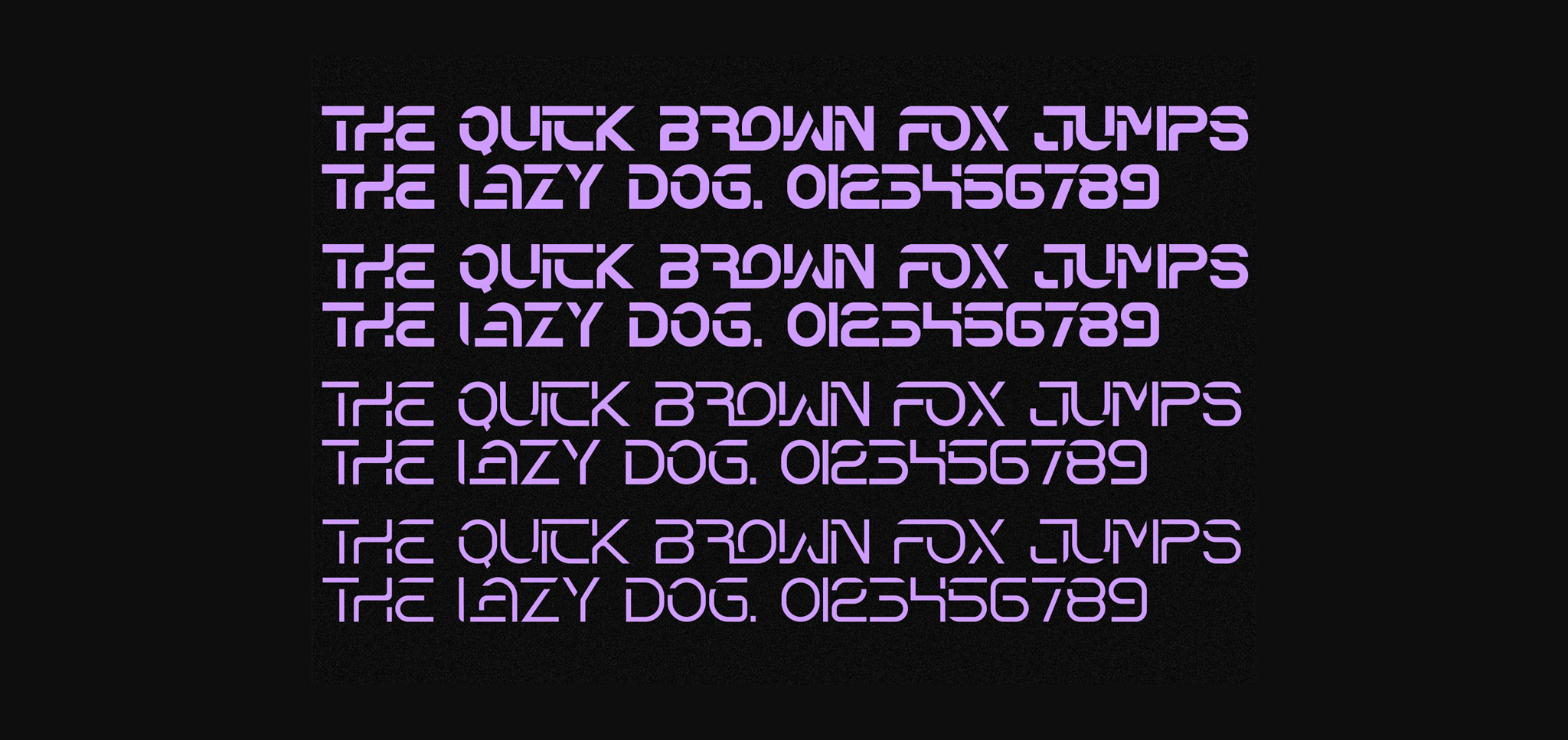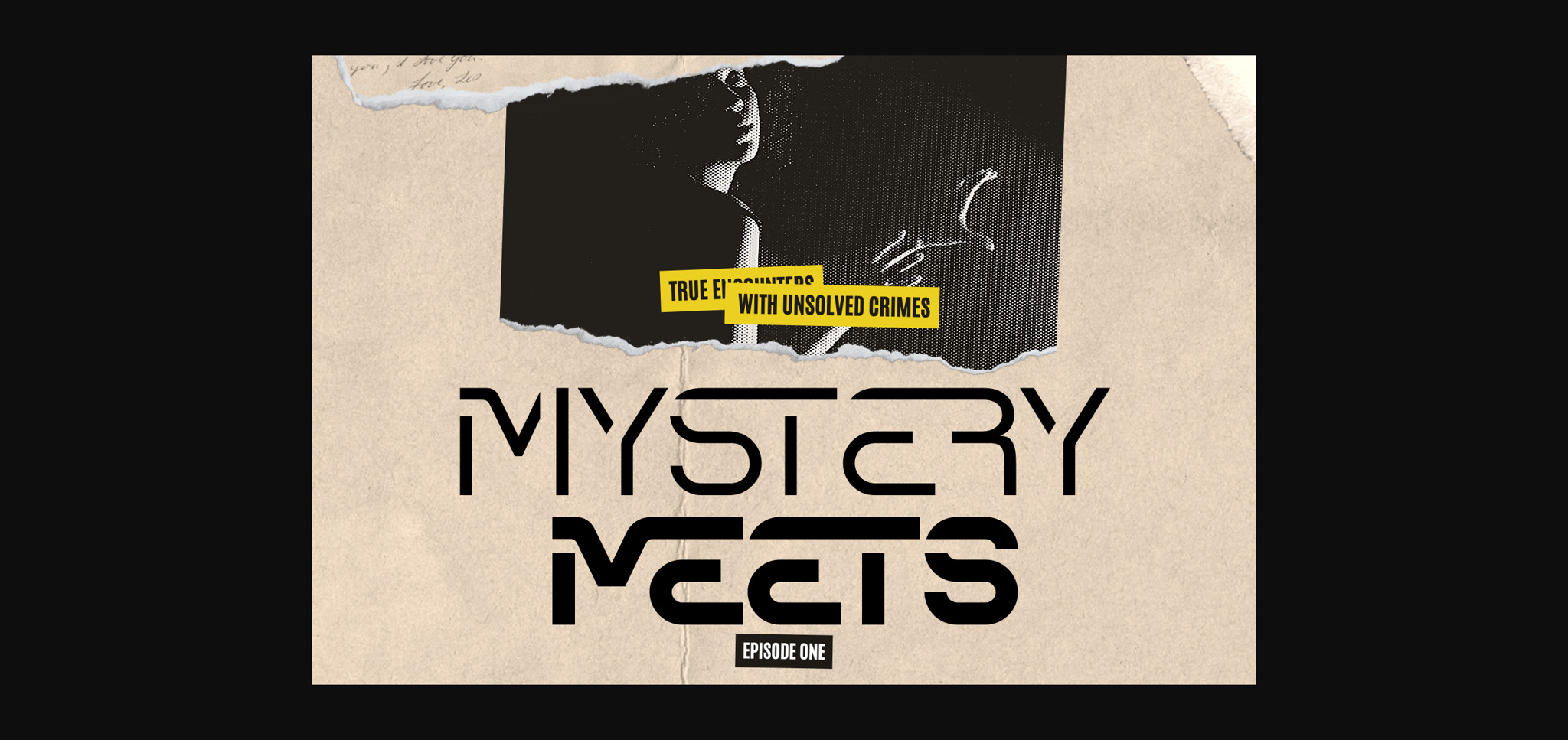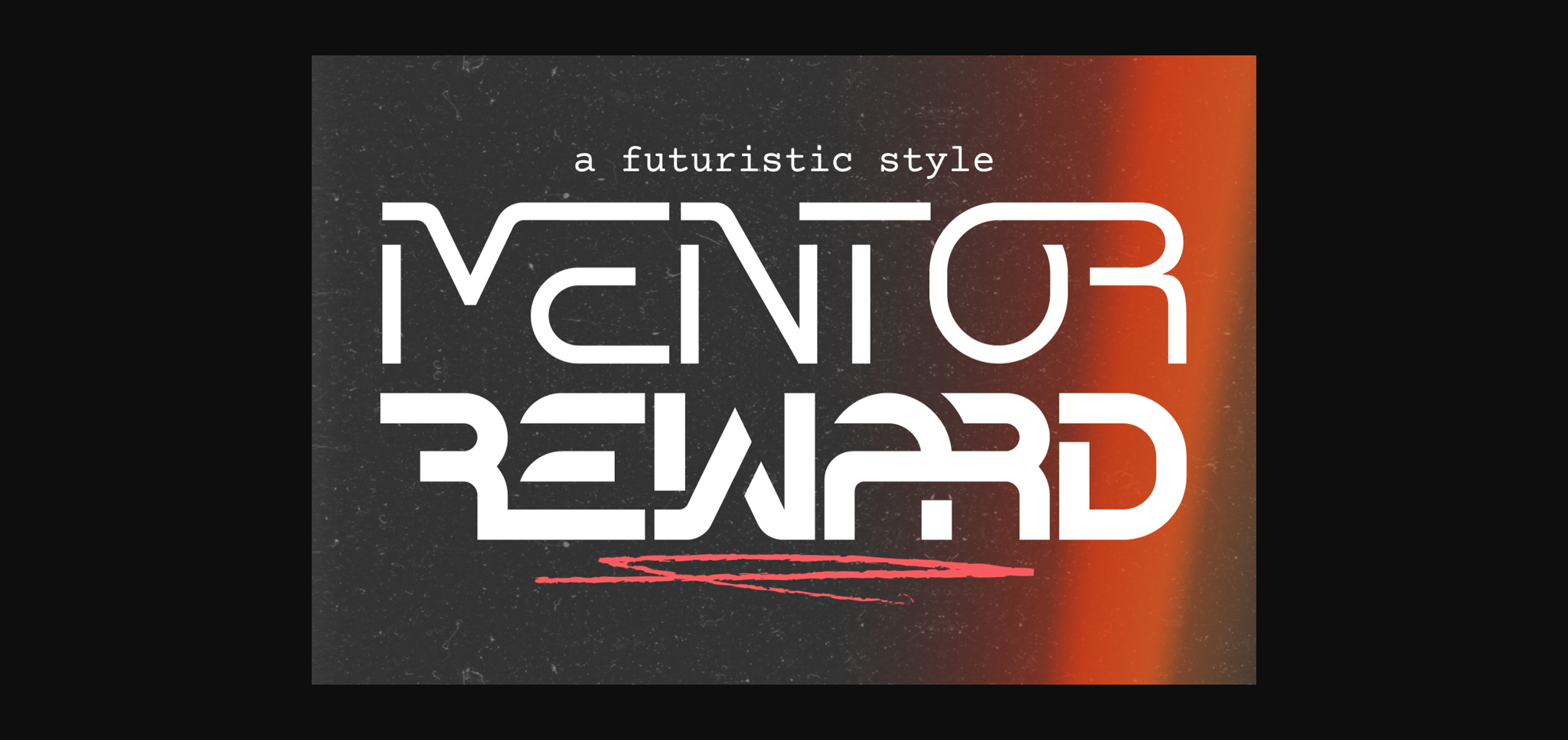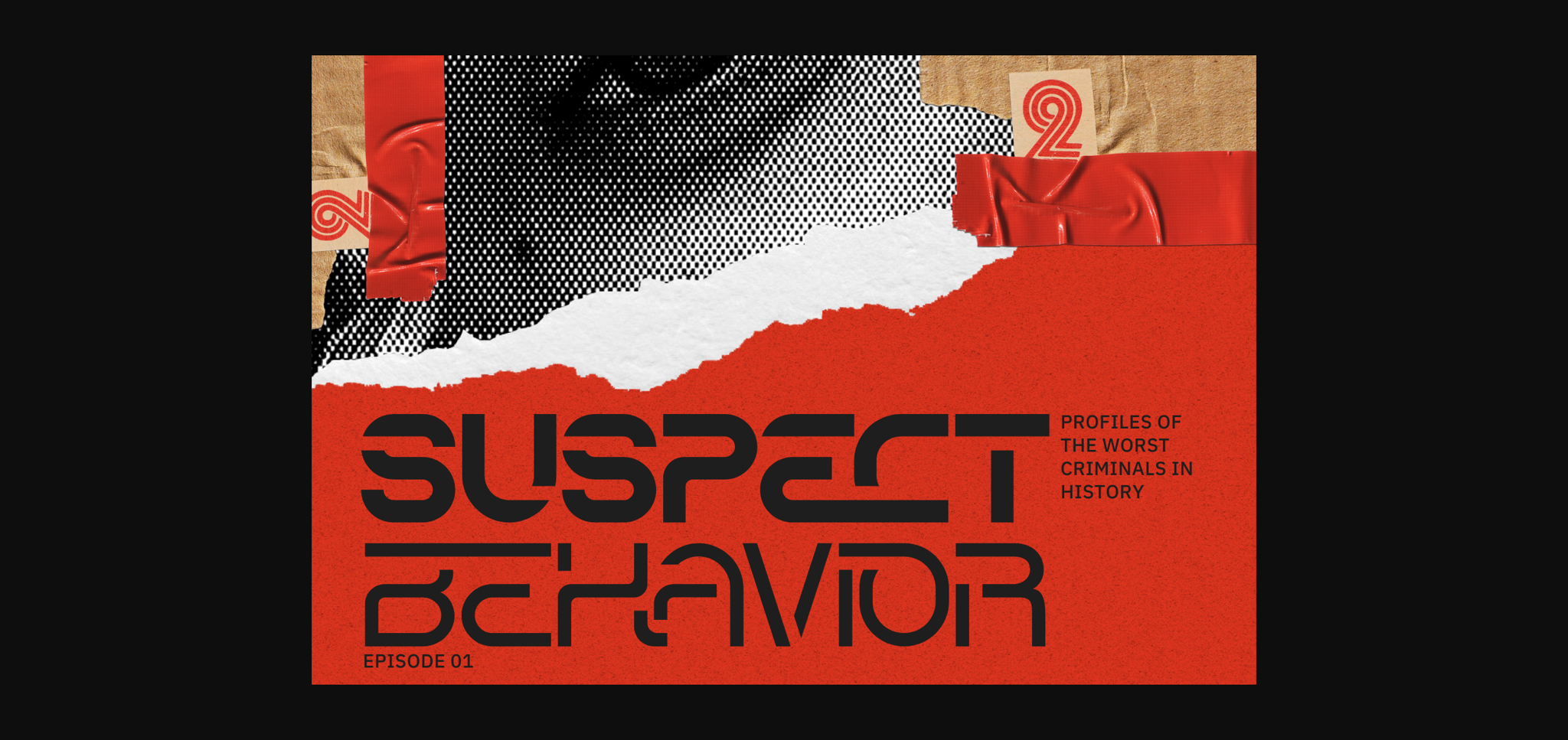
About Mentor Reward Font
Mentor Reward – Futuristic Font is a luxury font that comes in all caps that will make your designs look both futuristic and modern, using a simple design for a clean and elegant look. Perfect for sci-fi themes, tech branding, or any project that demands a modern edge, these fonts empower creativity with their versatility and user-friendly customization options. Elevate your designs to the next level and embrace the future of typography with our Futuristic Font product.